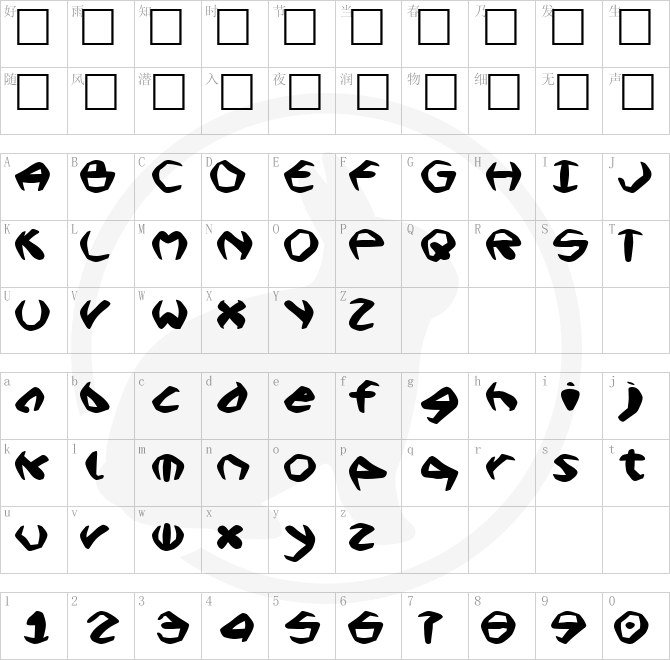
- Font Name:Radial
- Full Name:Radial Warp
Radial-Warp.ttf is a very beautiful artistic font, Radial-Warp.ttf is widely used in the design and printing of various books and pictures,Radial-Warp.ttf has a strong visual impact,Radial-Warp.ttf is a commonly used font in newspapers, magazines and books, and is used in posters, e-commerce Poster design, store design, logo design, font design and other fields.Radial-Warp.